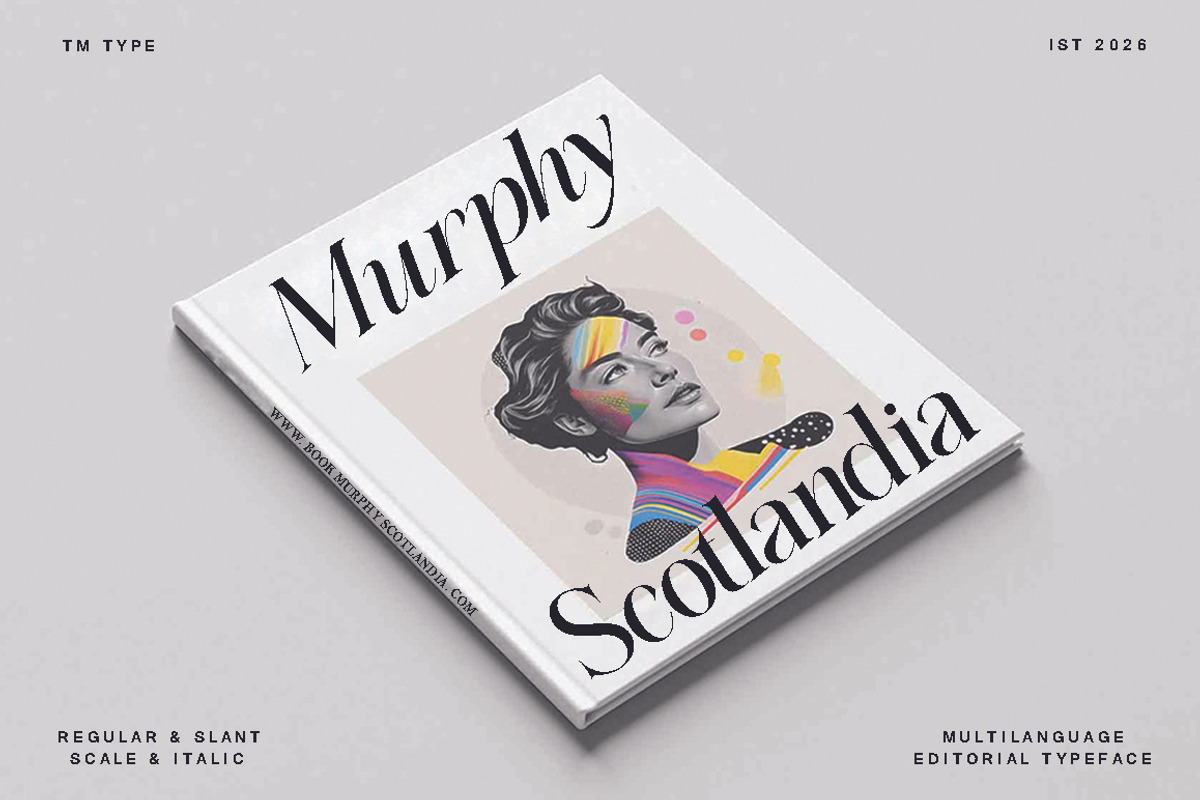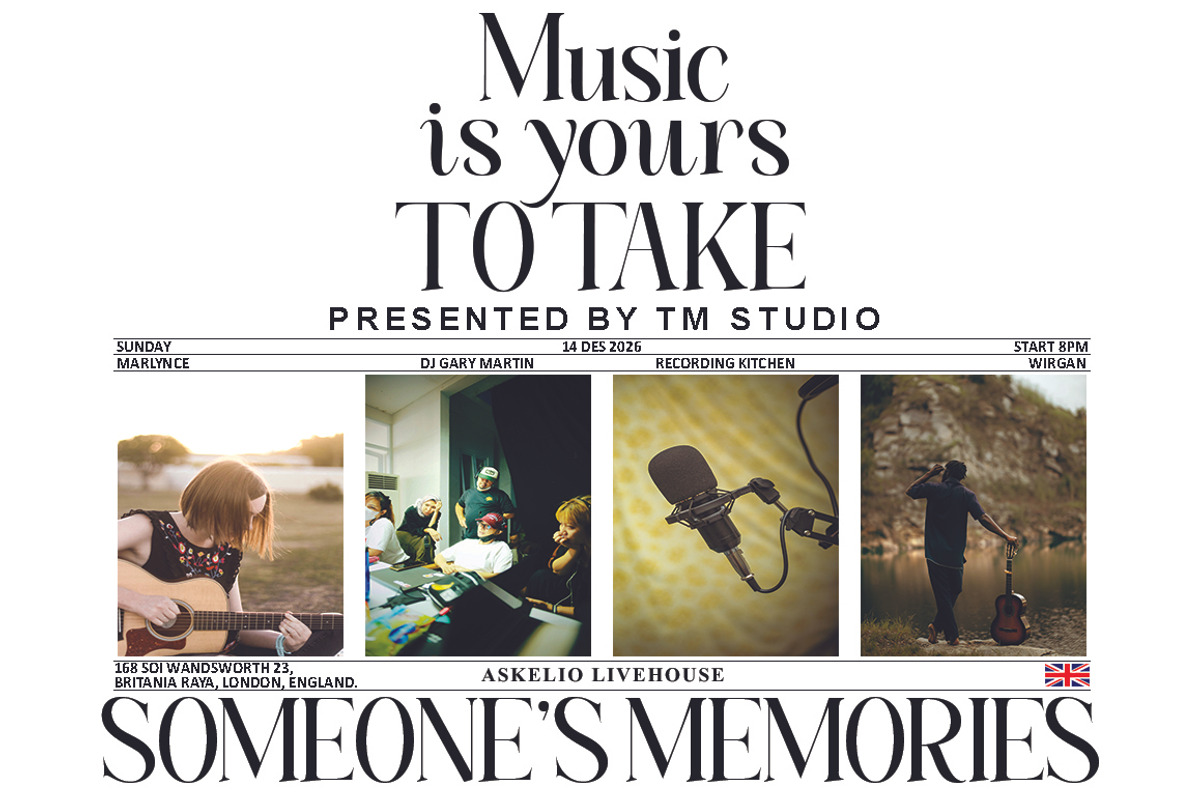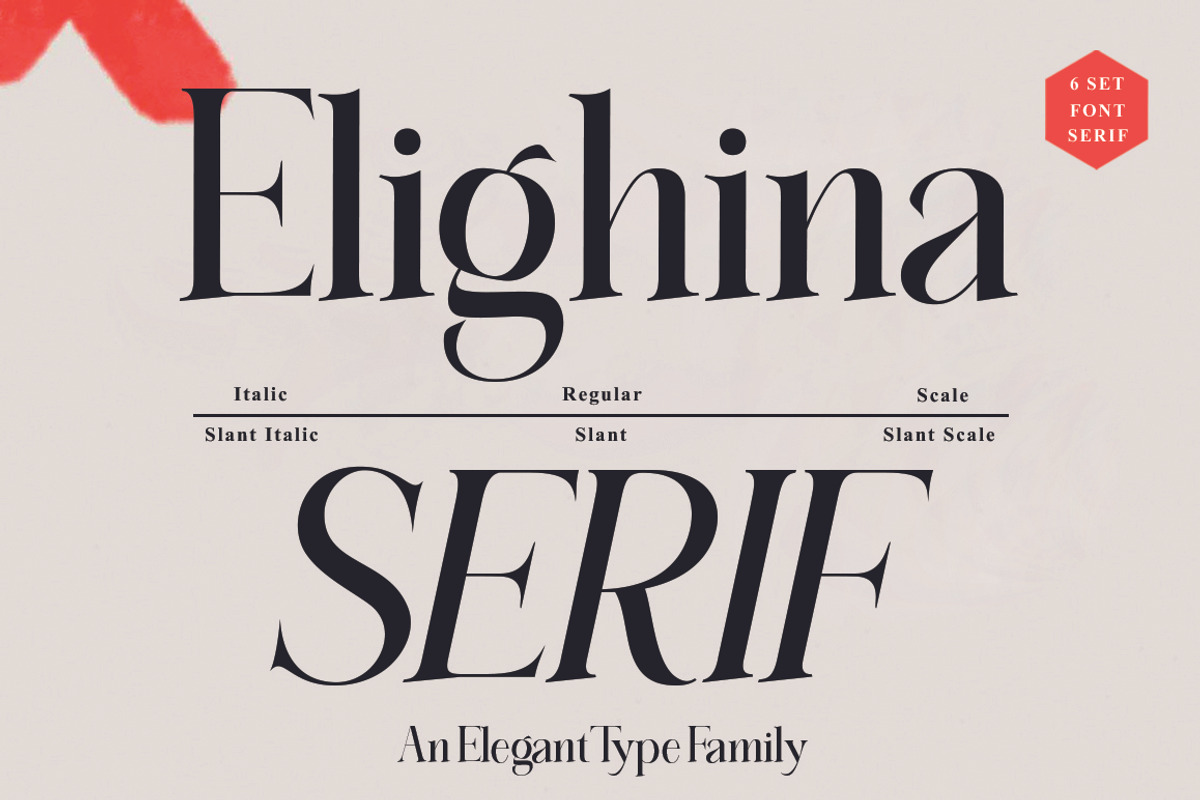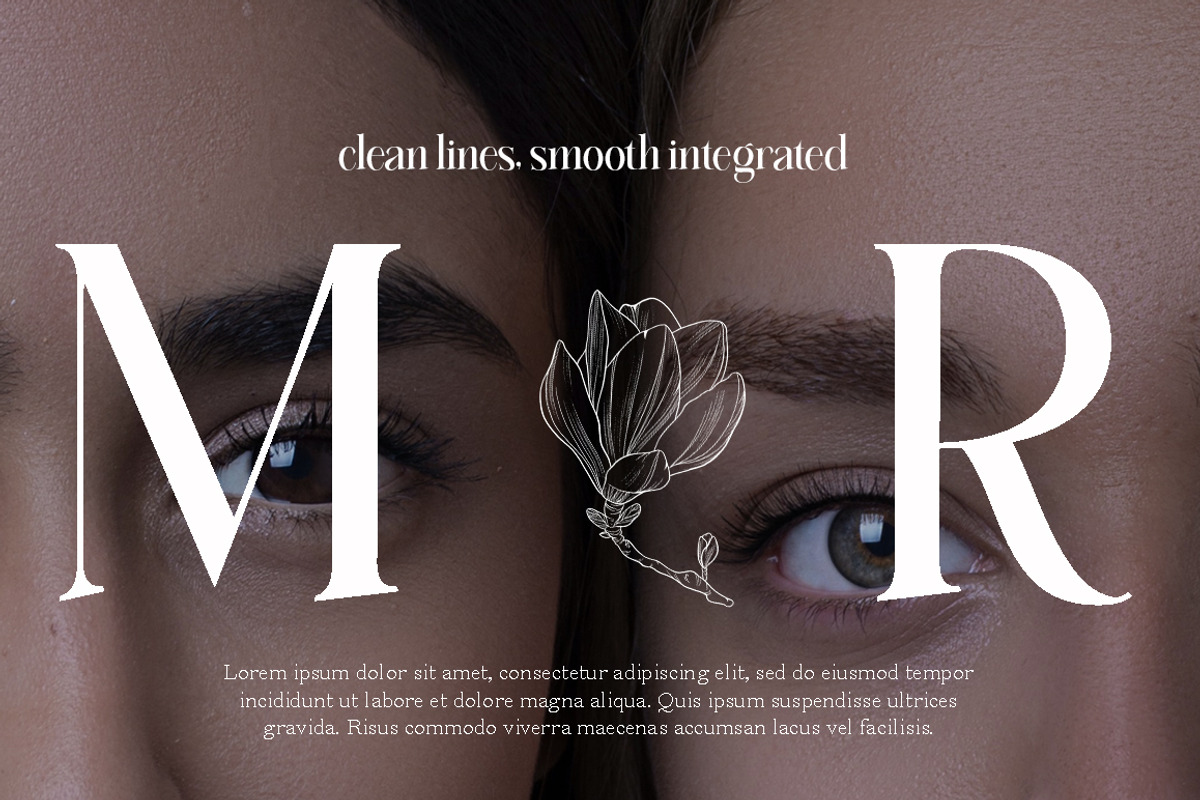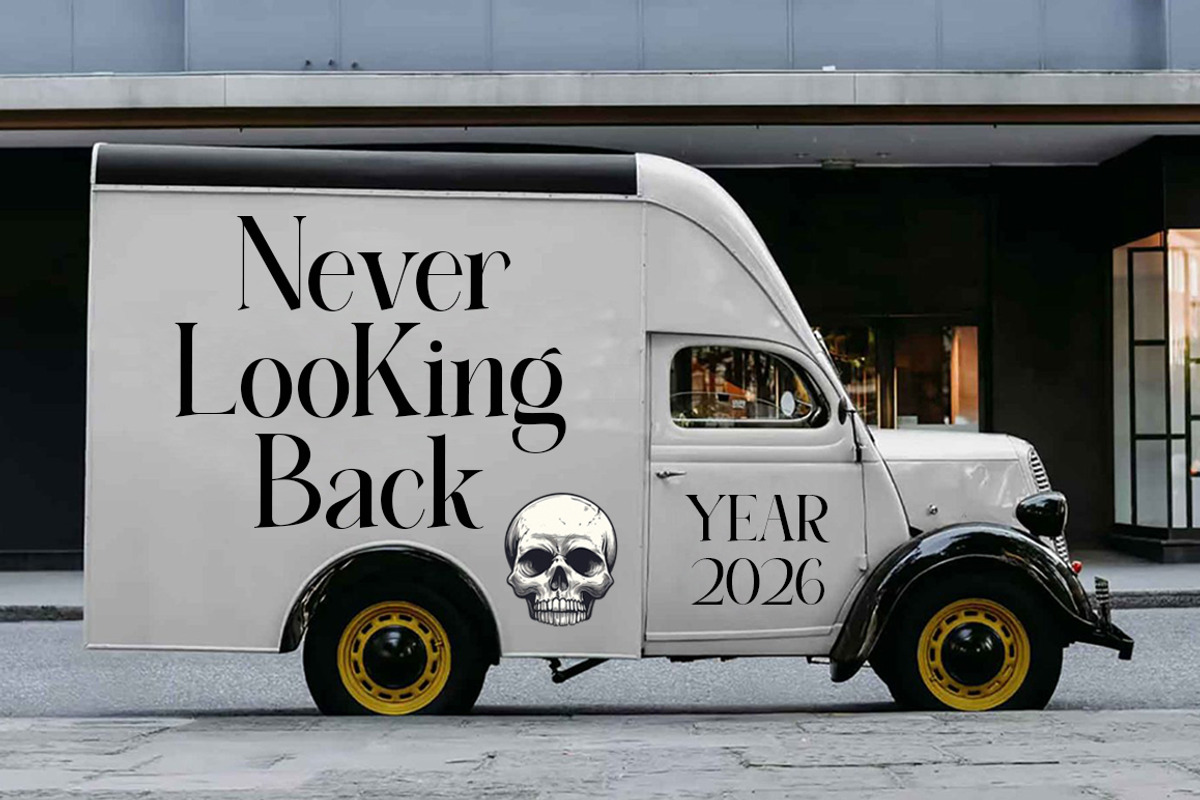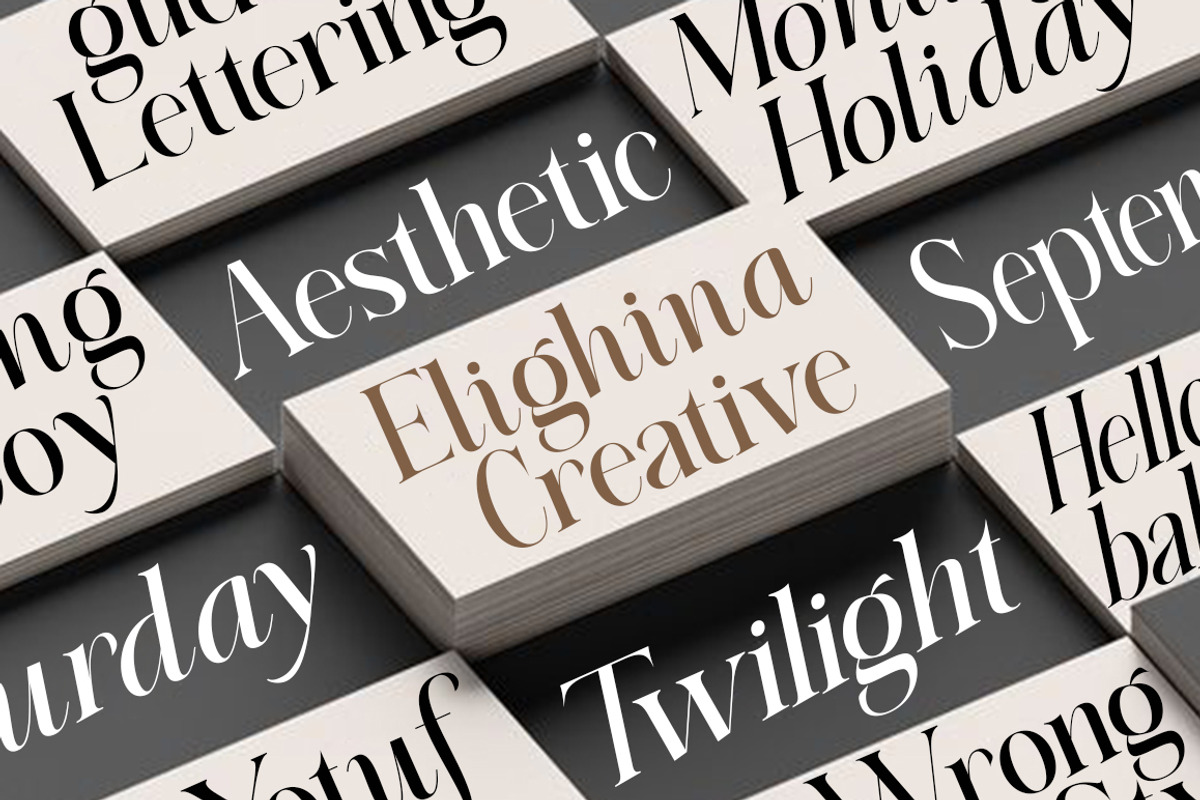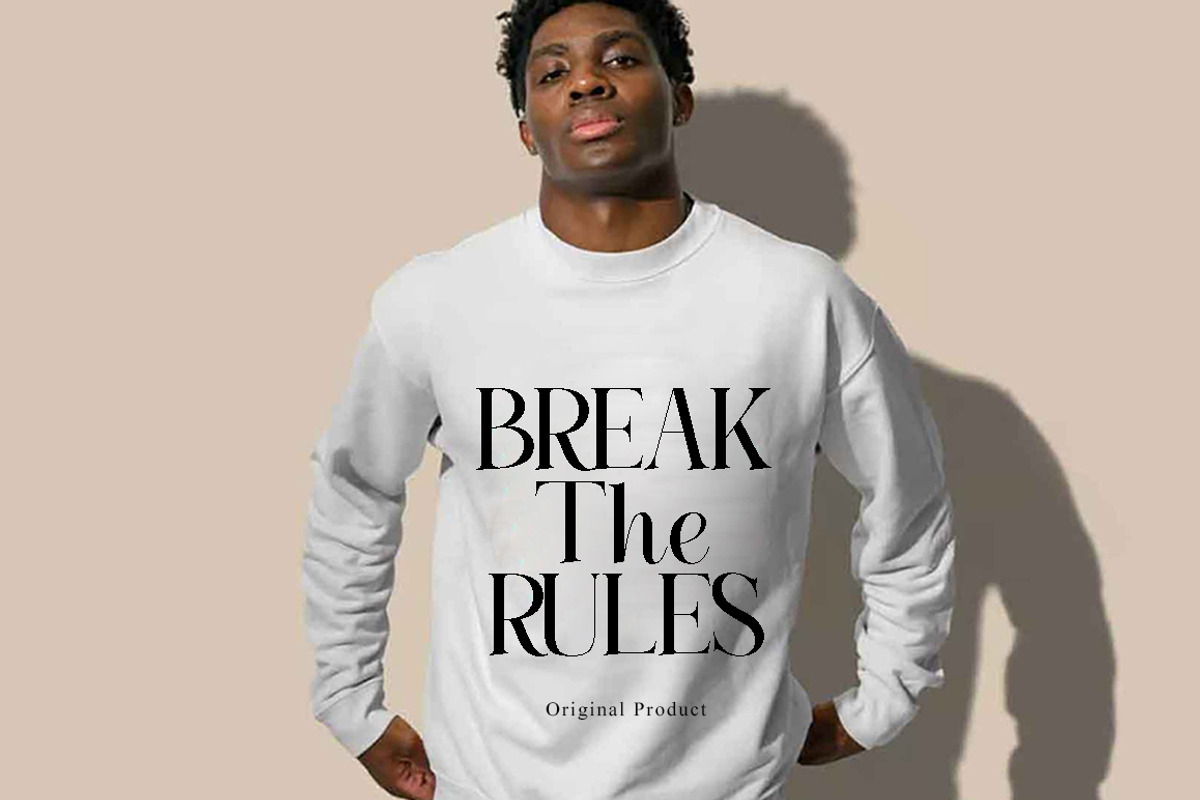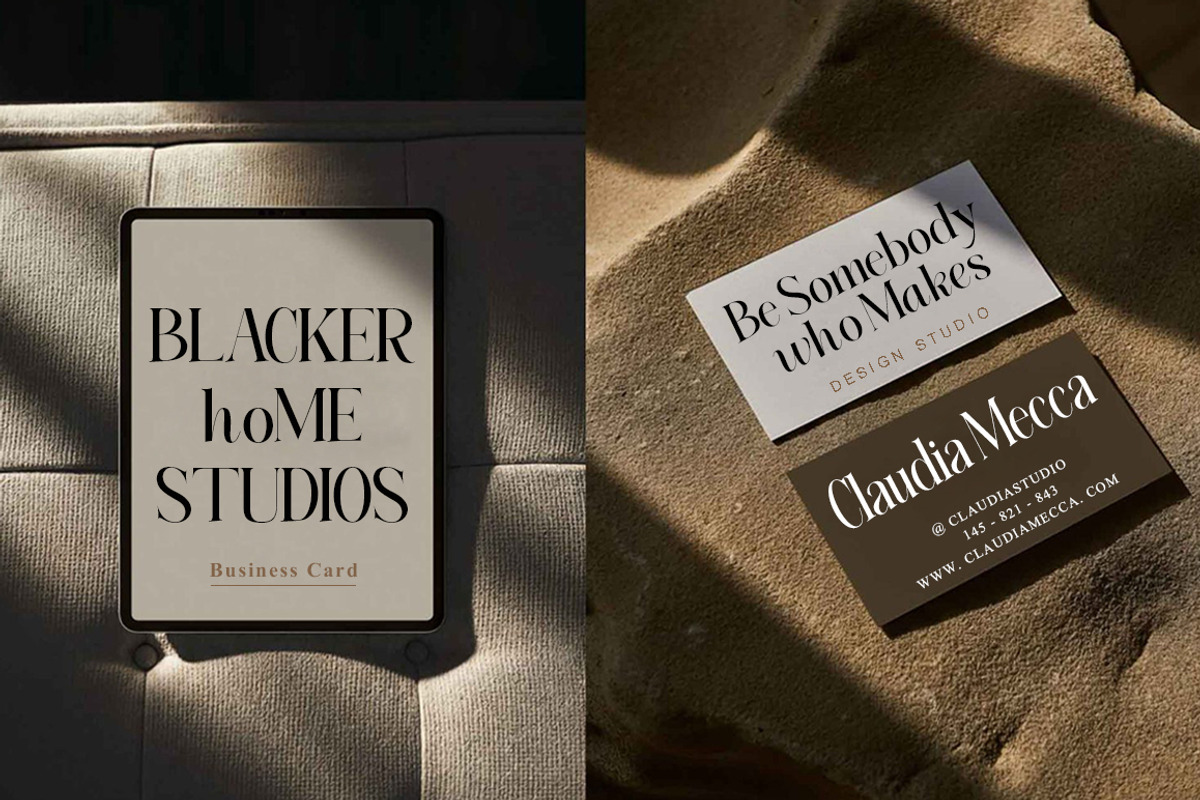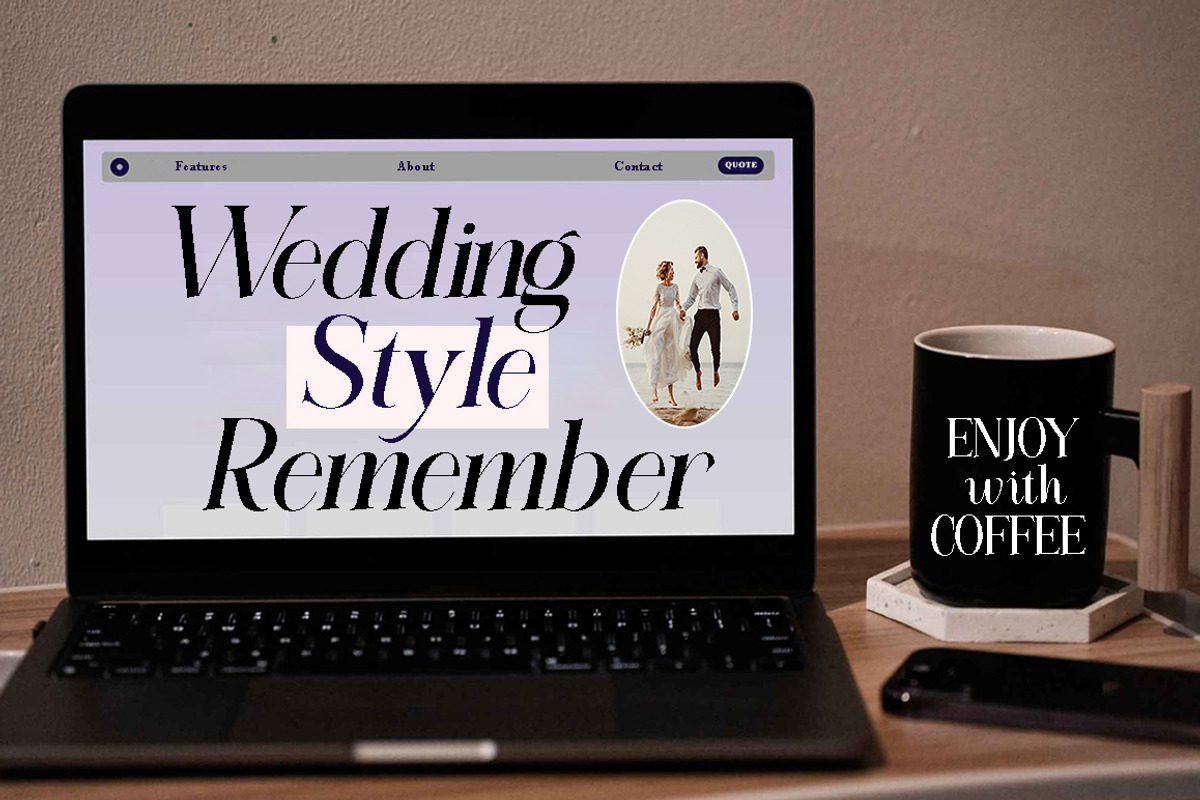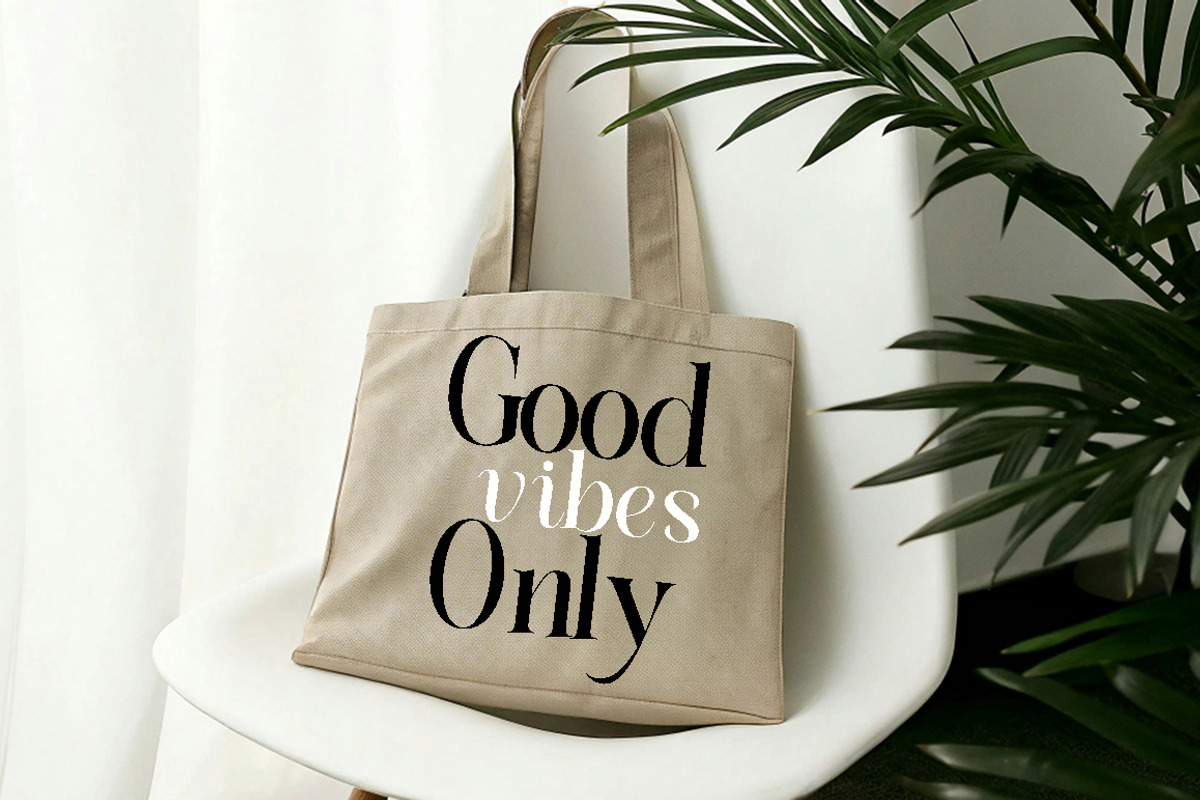
Elighina Serif
Elighina Serif is a classic and elegant retro serif with a modern twist. With its decent readability, Elighina Serif is perfect for both displays as well as body text.
Inspired by all the retro aesthetics making a comeback, Elighina Serif is perfectly suitable for creating nostalgic yet still clean and elegant designs such as logos, packaging, editorial, and more.
FEATURE: Europeans languages and many others